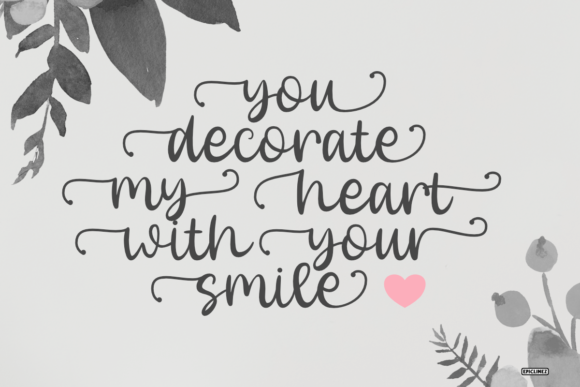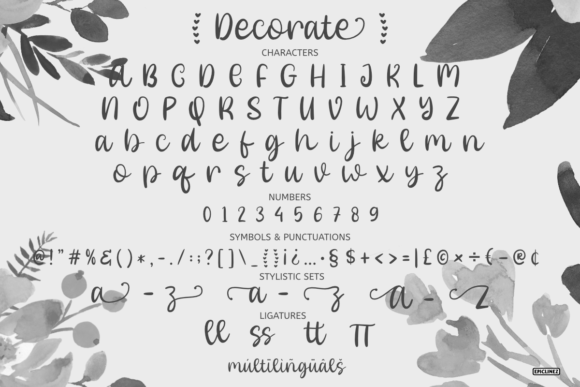
Introduction to Decorate Font
As you sit in front of your computer, brainstorming ideas for your next creative project, the perfect font can be the spark that sets your imagination ablaze. For designers, the right font can make or break the overall aesthetic of a design. And that’s exactly where the Decorate Font comes in – a stylish and delicate handwritten font that’s sure to elevate your design game.
With its beautiful and well-balanced characters, the Decorate Font is a design resource that can add a touch of elegance to any project. Whether you’re working on a free download, a brochure, or a website, this font is sure to make your design stand out. And the best part? It’s incredibly versatile, making it perfect for a wide range of designs, from wedding invitations to social media graphics.
Key Features of Decorate Font
- Includes a range of unique characters and glyphs to enhance creative expression
- Perfect for graphic designers, digital artists, and anyone seeking a versatile and stylish font
Honest Review: Decorate Font
I recently stumbled upon the Decorate Font while searching for a design resource to elevate my creative project. I was impressed with the high quality and versatility of this font.
- ✨ High quality: The font is crisp and clear, making it perfect for both digital and print projects.
While the Decorate Font is an excellent addition to any designer’s toolkit, there are a few limitations to consider:
- ⚠️ Limited styles: The font comes in a limited range of styles, which may not be suitable for projects that require a wide range of typography options.
Tips for Getting the Most Out of Decorate Font
Use Decorate Font in combination with other design resources to create a visually appealing design.
Experiment with different font sizes and colors to achieve the desired effect.
Use Decorate Font in creative projects such as social media graphics, brochures, and business cards.
Decorate Font is ideal for use in creative projects such as:
Social media graphics and advertising
Brochures and business cards